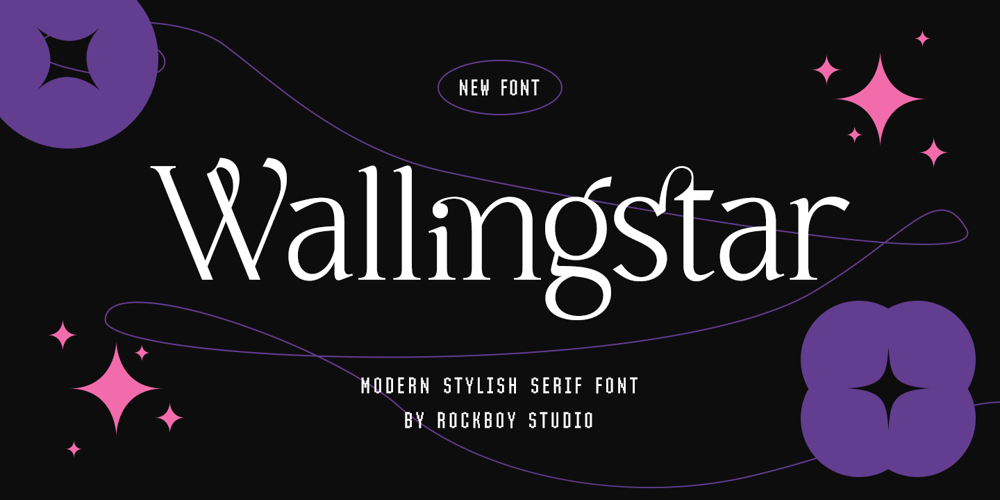
Wallingstar
Wallingstar font
Wallingstar Font Family was designed by Hayinah and published by Rockboys Studio. Wallingstar contains 1 styles and family package options. Wallingstar is an elegant and distinct serif font. Suitable for a wide variety of designs due to its neat and simple style, this font has the potential to become your favorite go-to font, no matter the occasion!